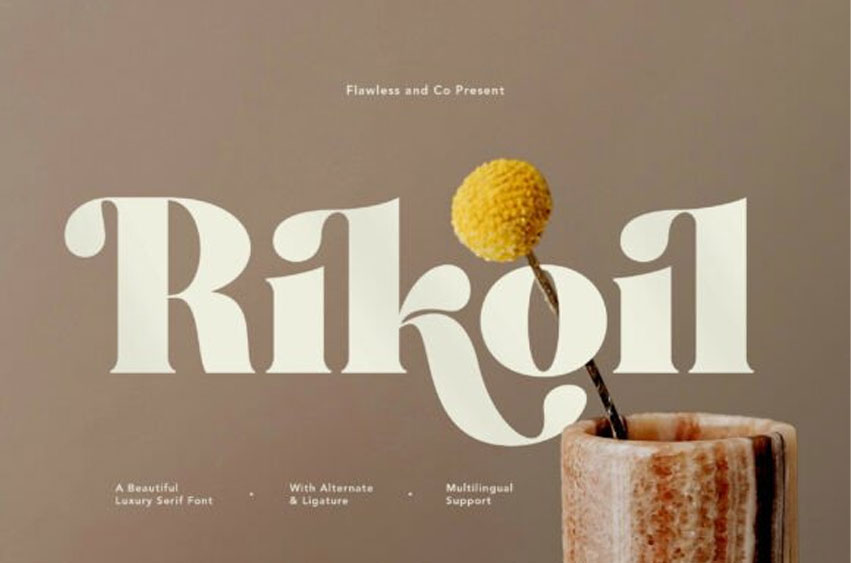
Rikoil Font
Rikoil Font is a stunning serif font that blends timeless elegance with modern sophistication. Featuring bold letterforms, refined curves, and graceful serifs, this typeface is designed to bring a sense of luxury and artistry to every project.
With its stylish alternates and ligatures, Rikoil offers endless creative possibilities, making it perfect for designers who want to elevate their work with a touch of charm and class.